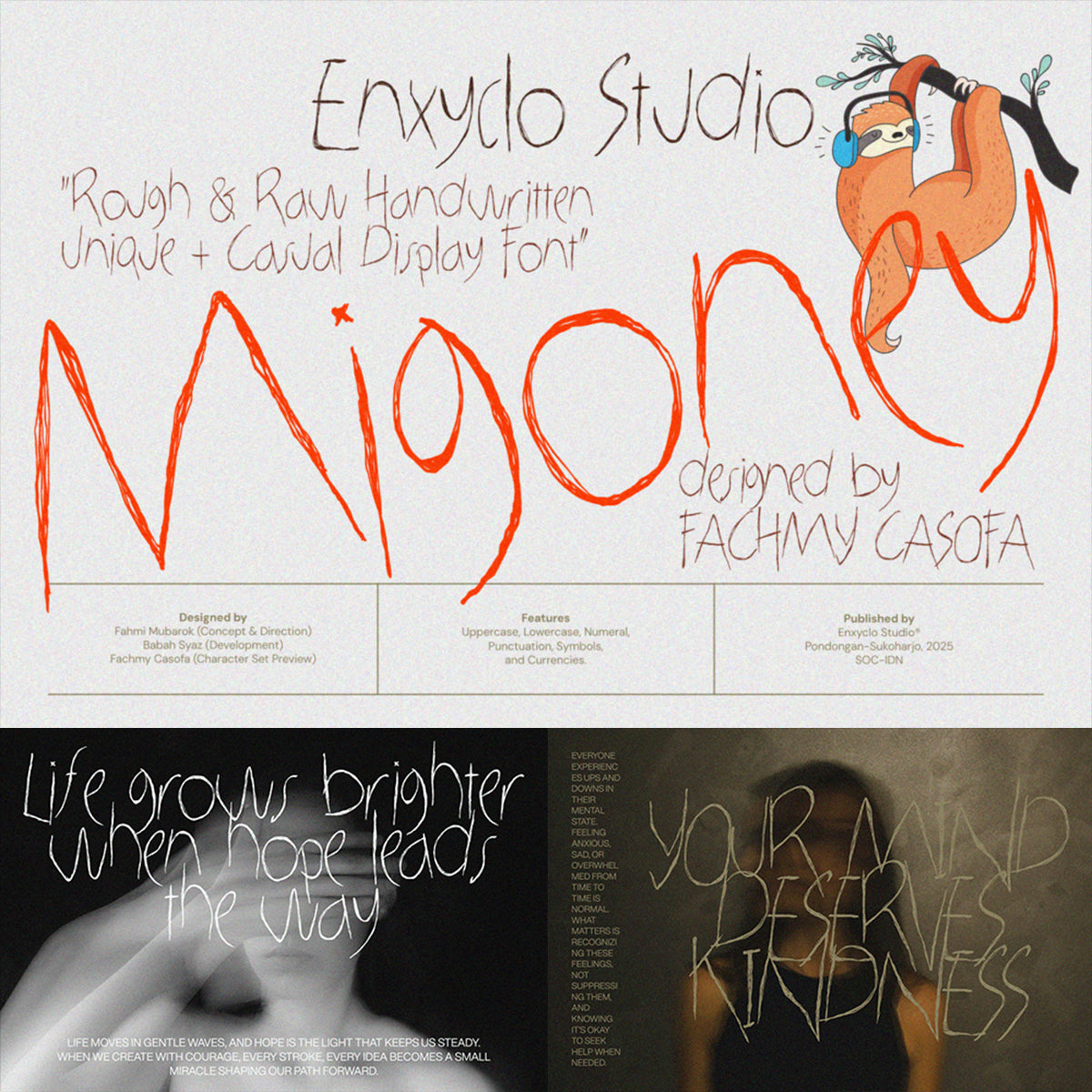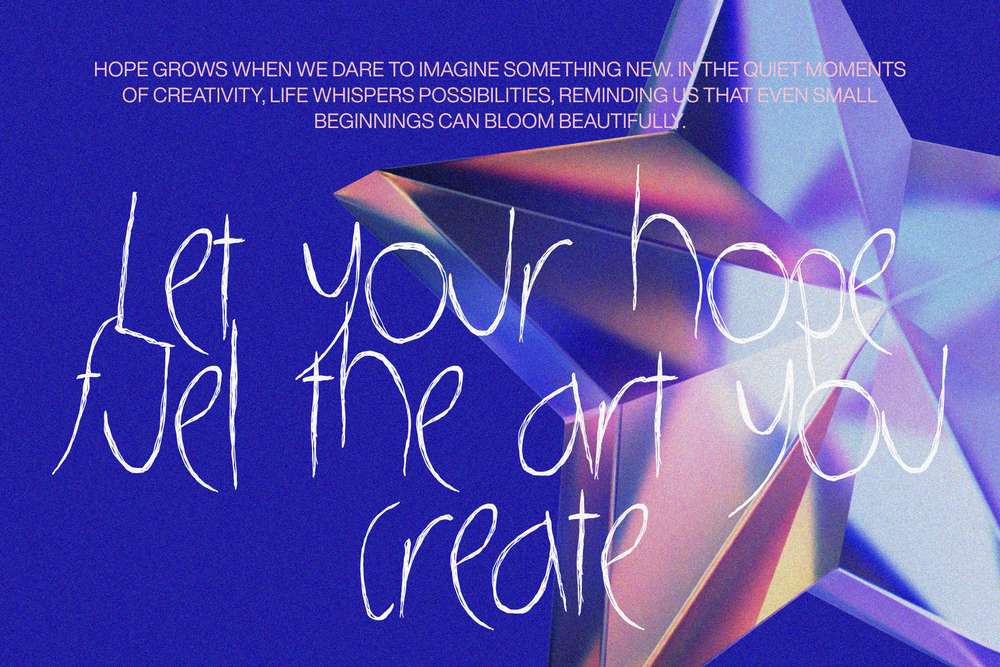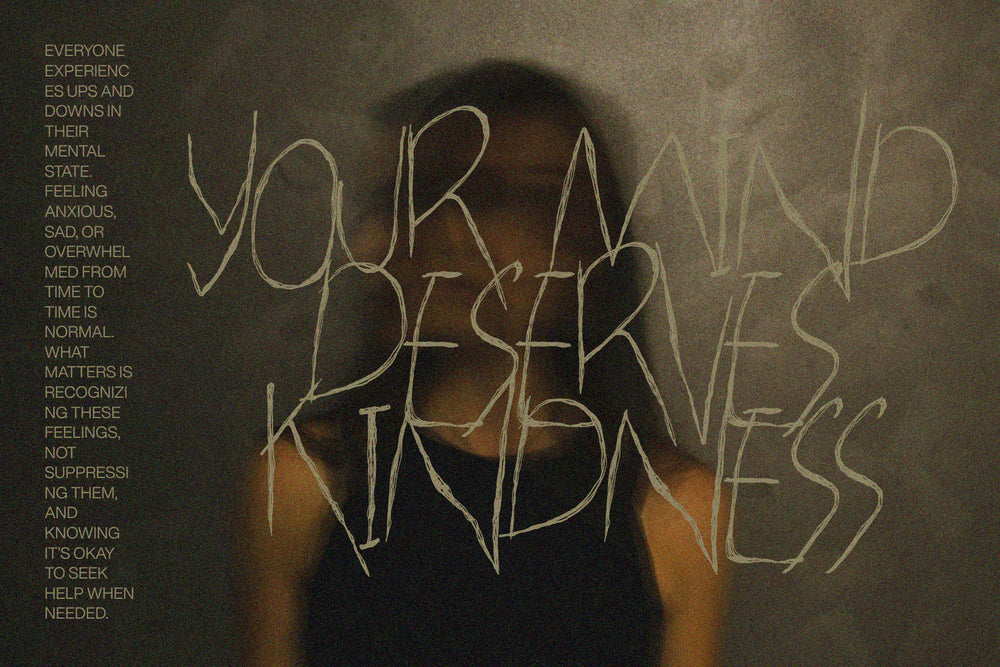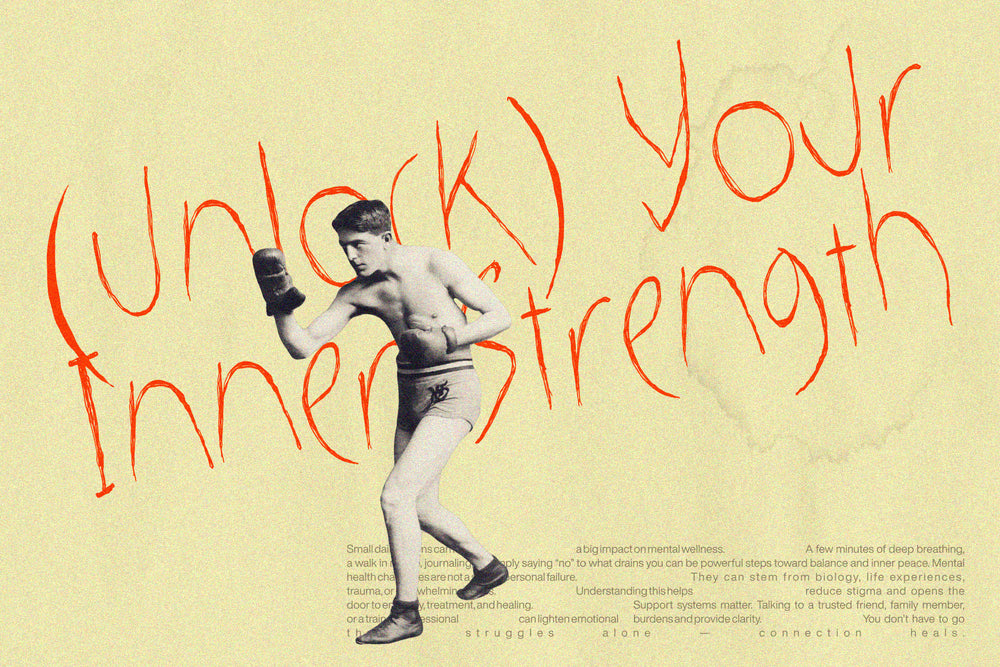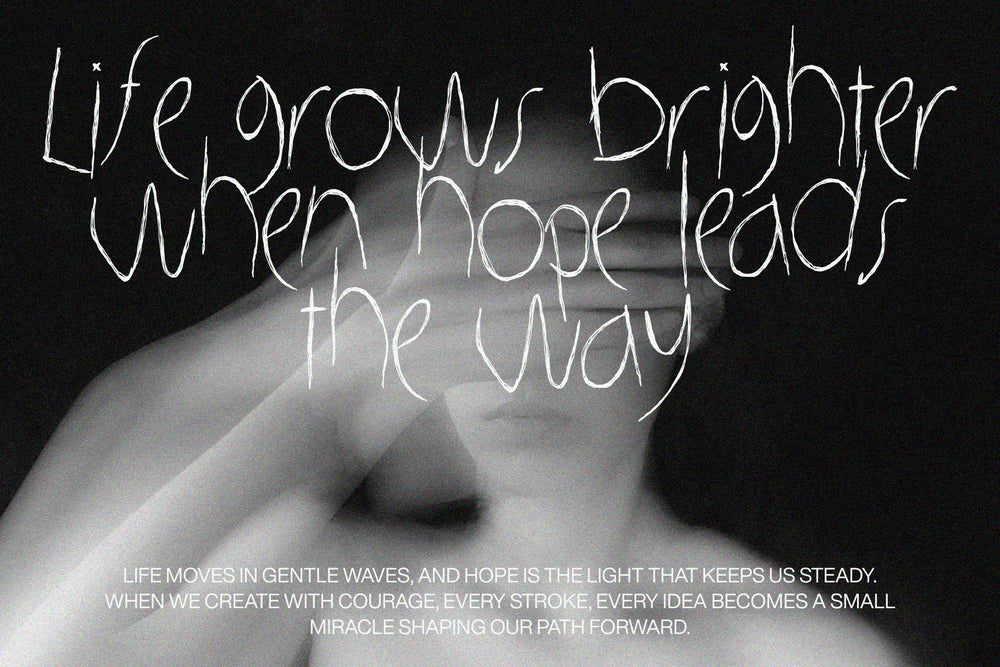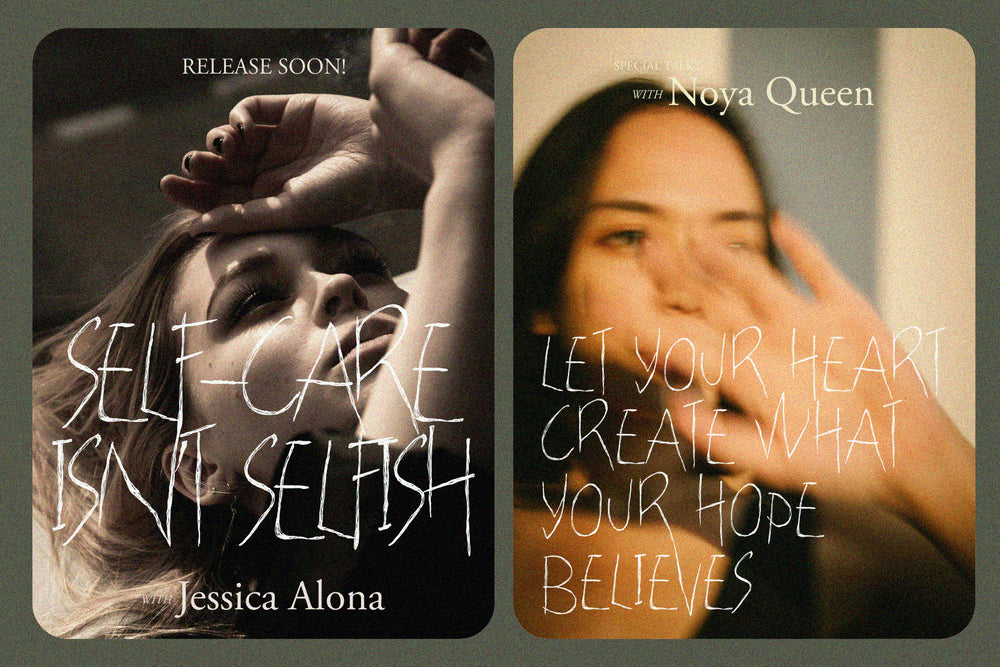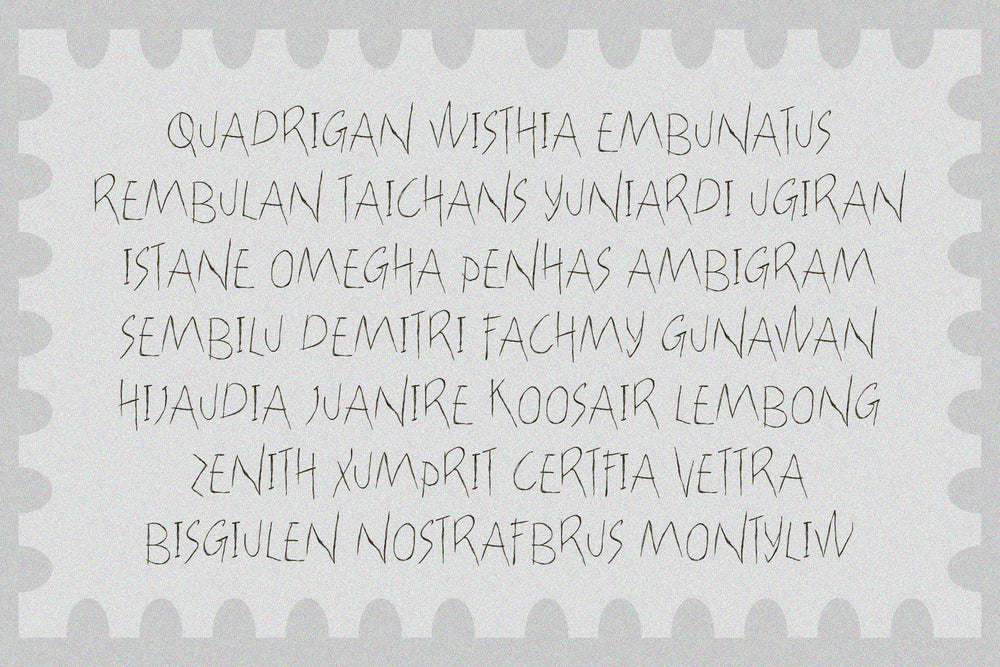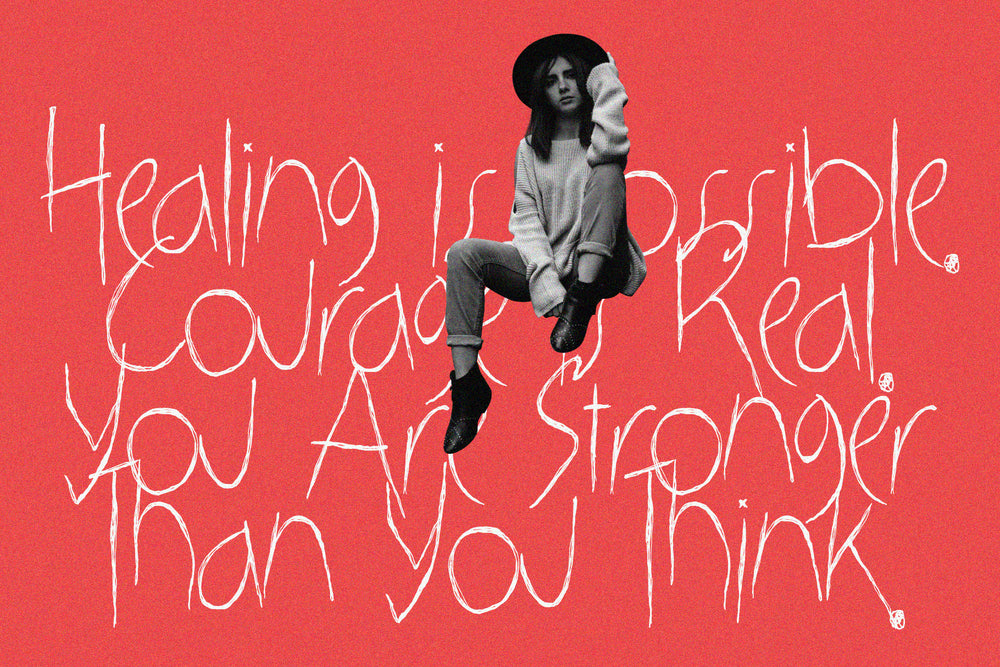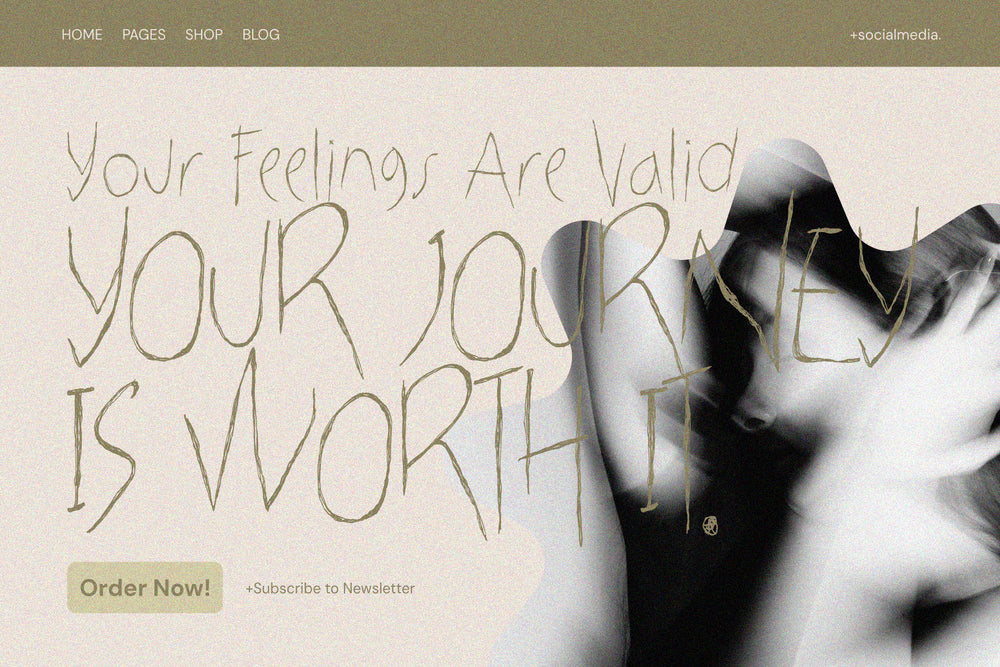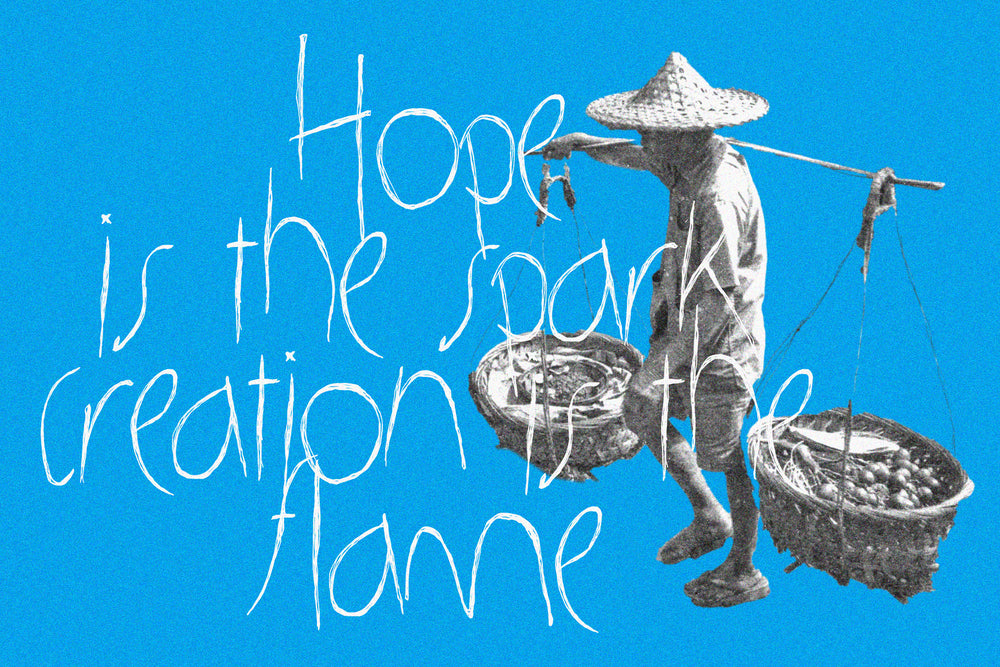
MIGONEY – Raw Handwritten Font
MIGONEY is a raw, handwritten font featuring uneven strokes and a handcrafted texture, available in OTF, TTF, and WOFF formats. It includes uppercase and lowercase letters, punctuation marks, a symbol set, and currency symbols, offering a unique and authentic aesthetic for various design projects.